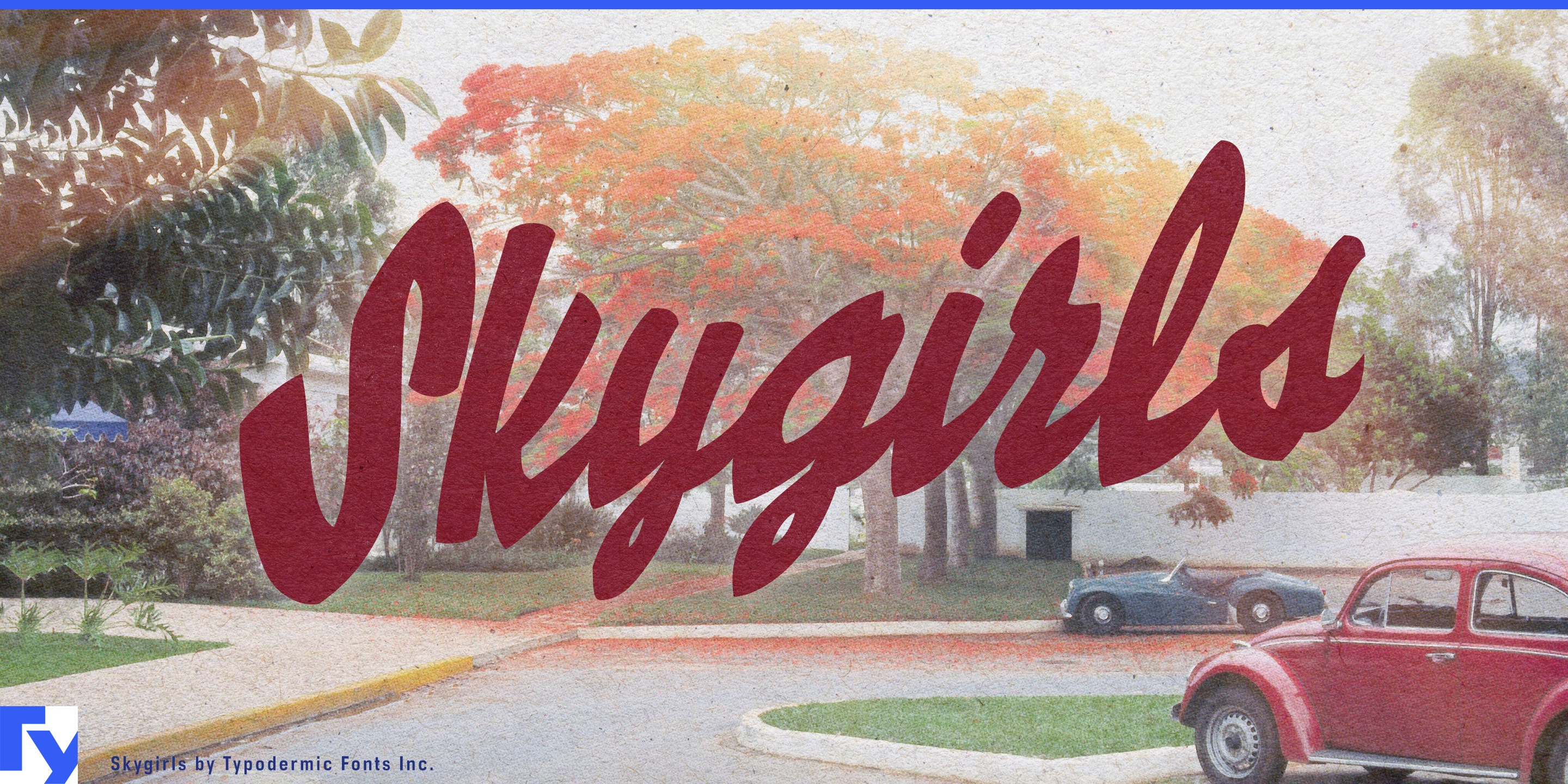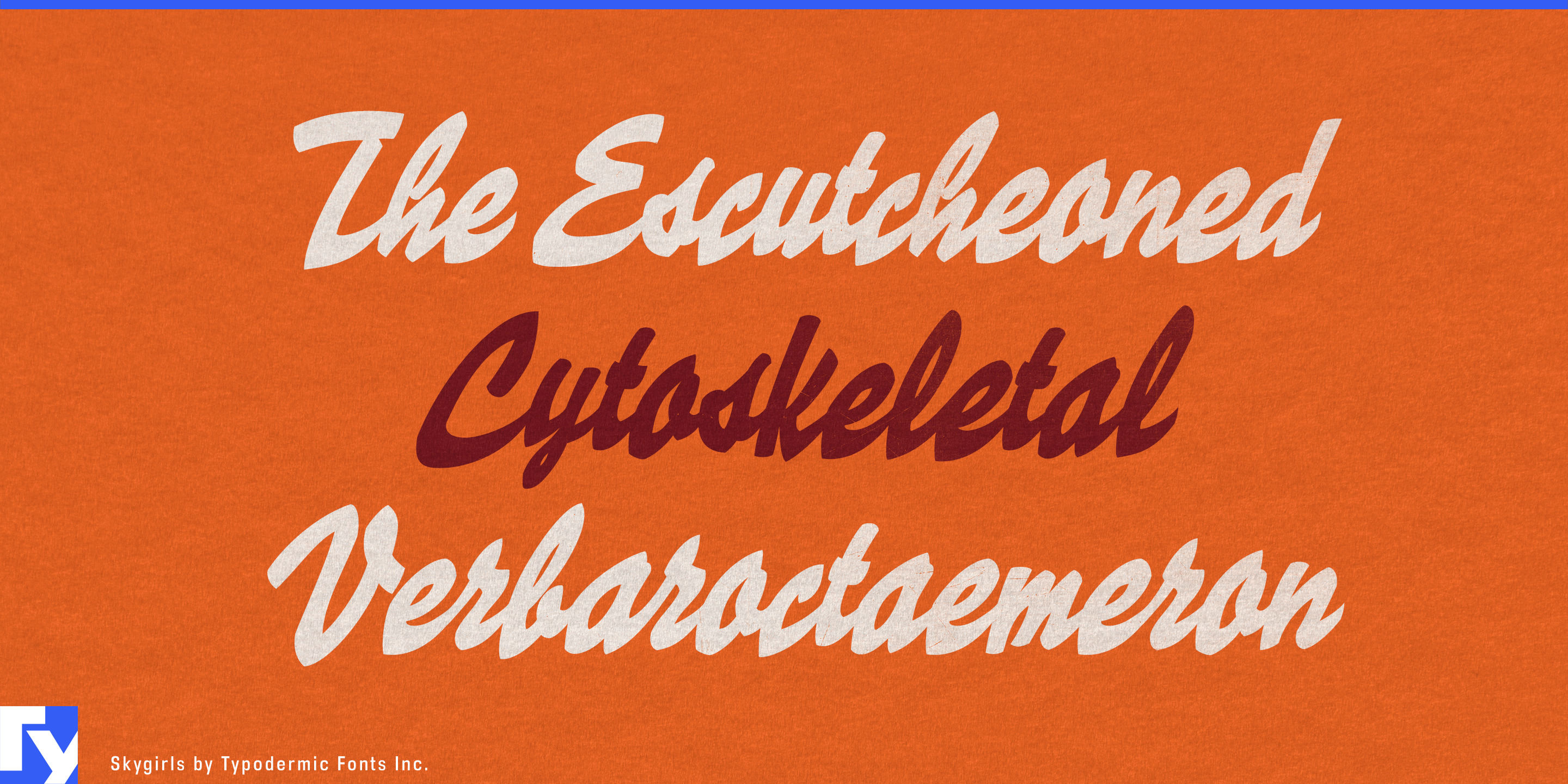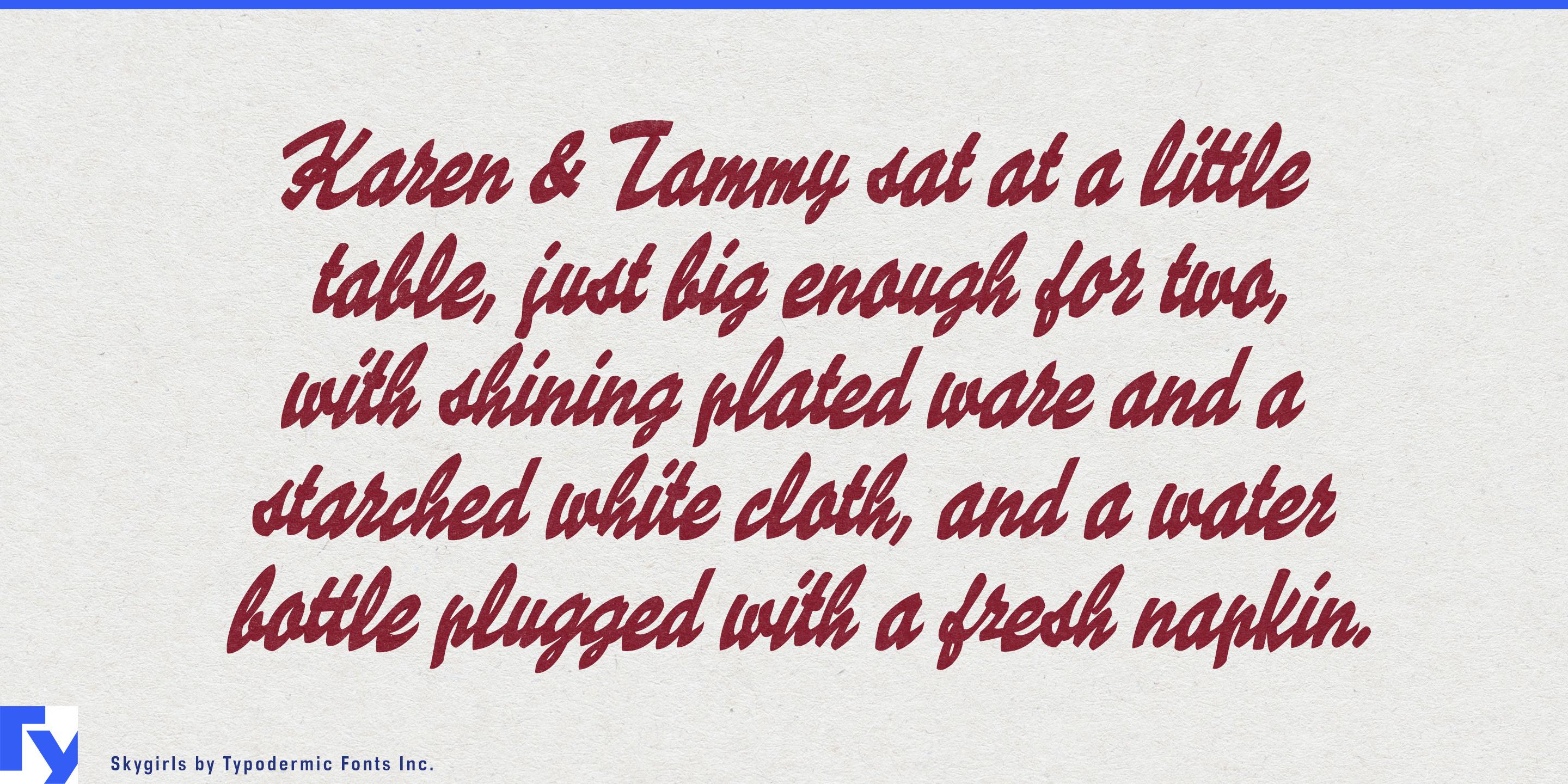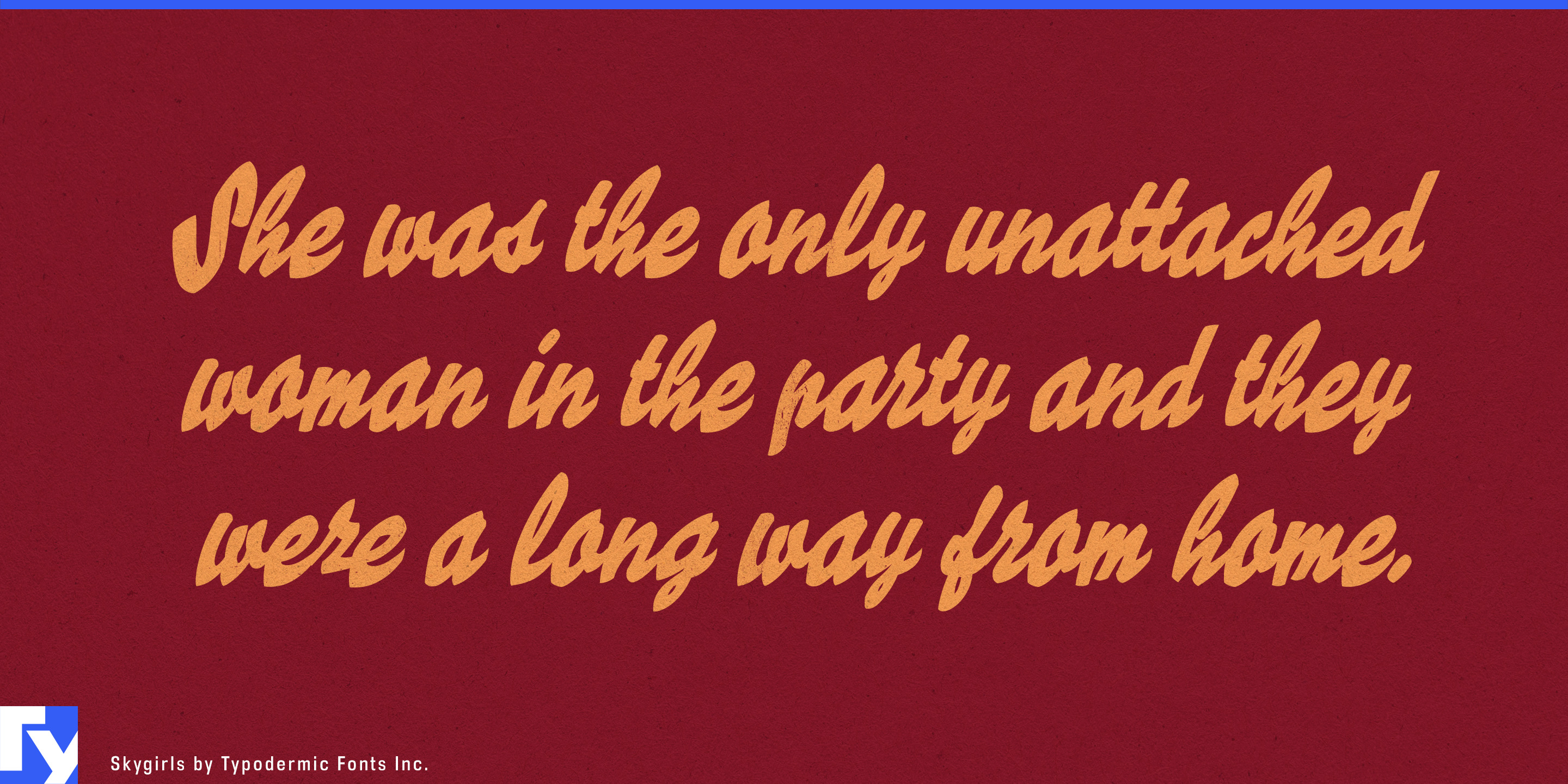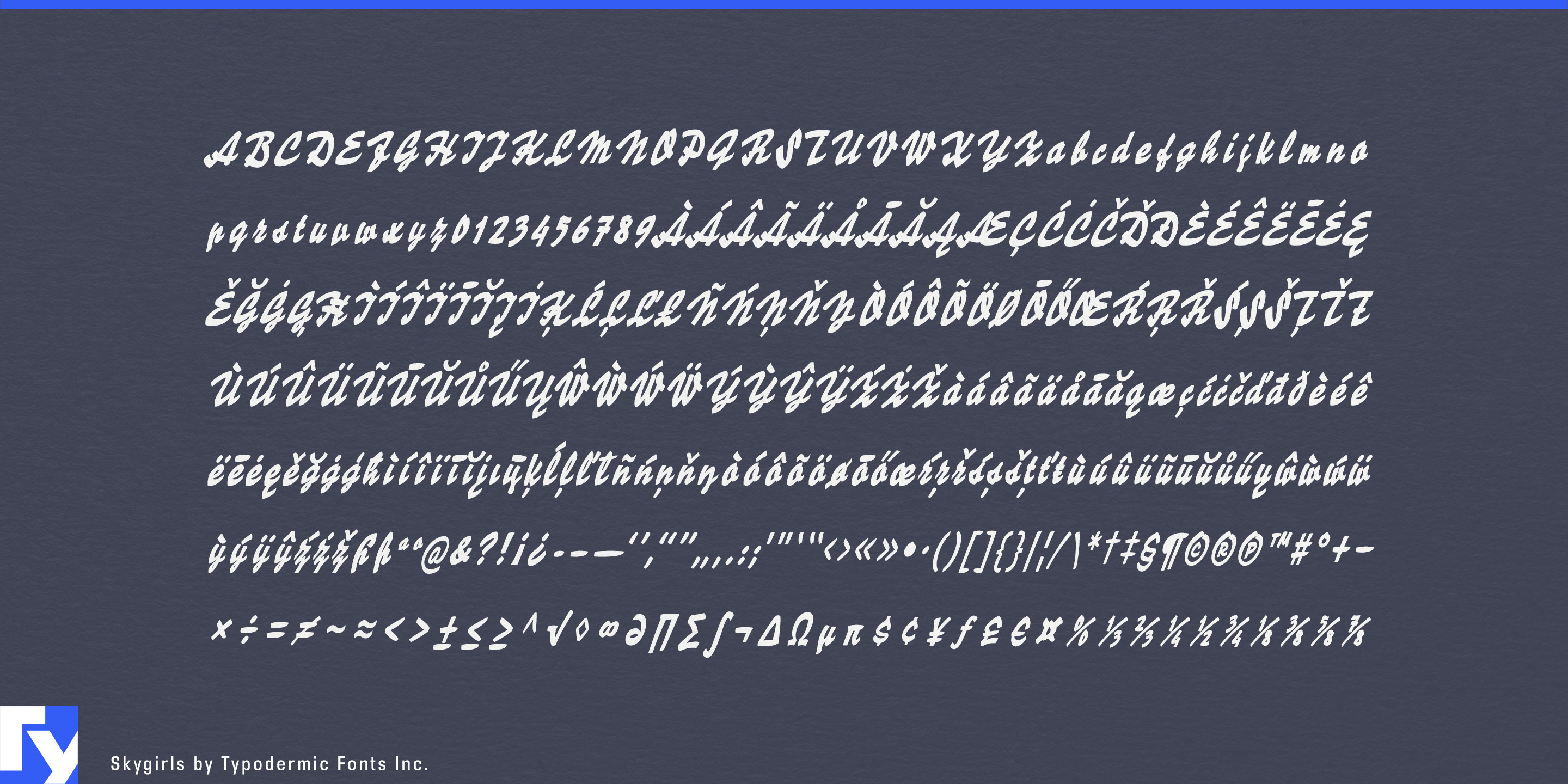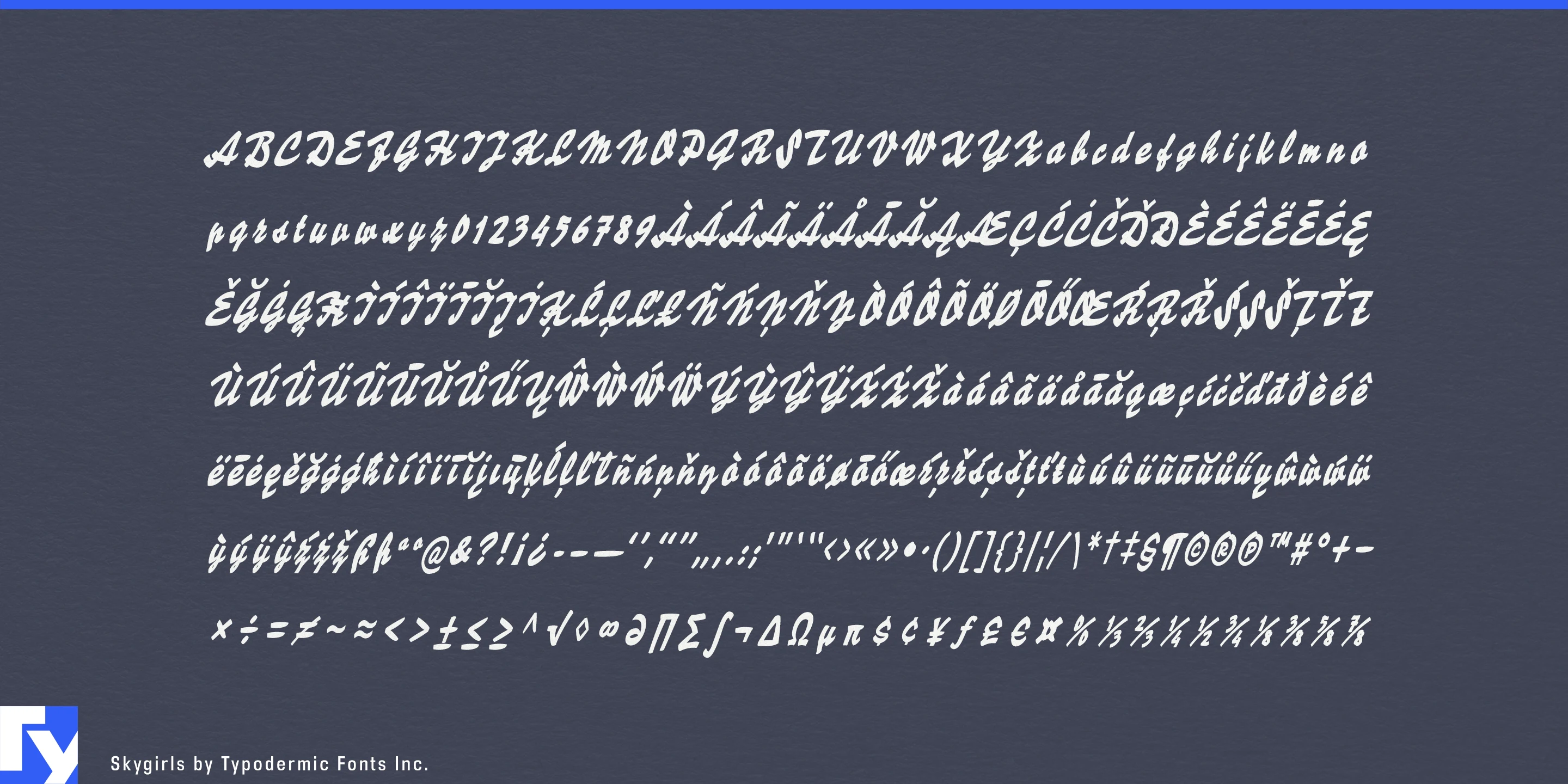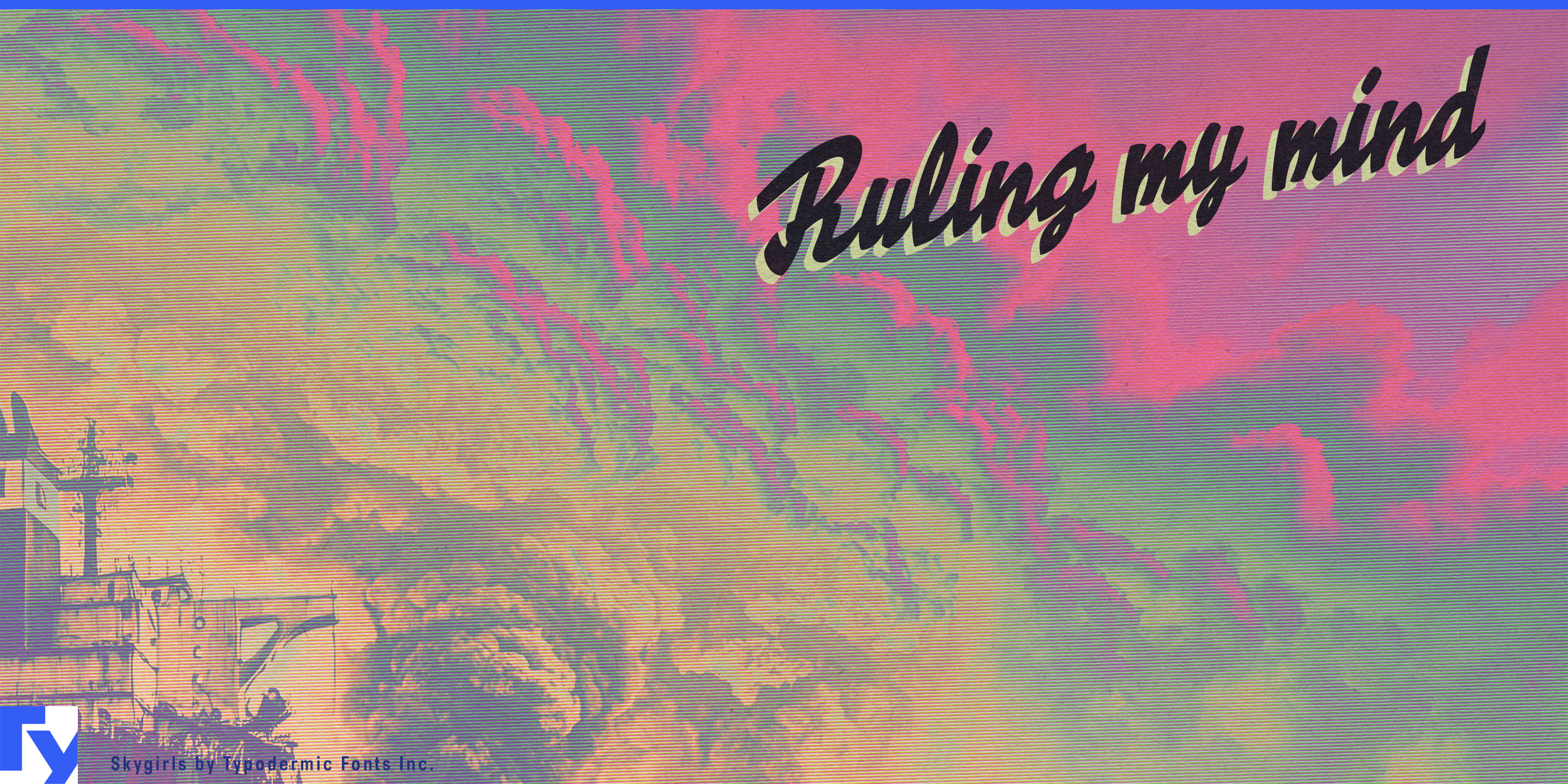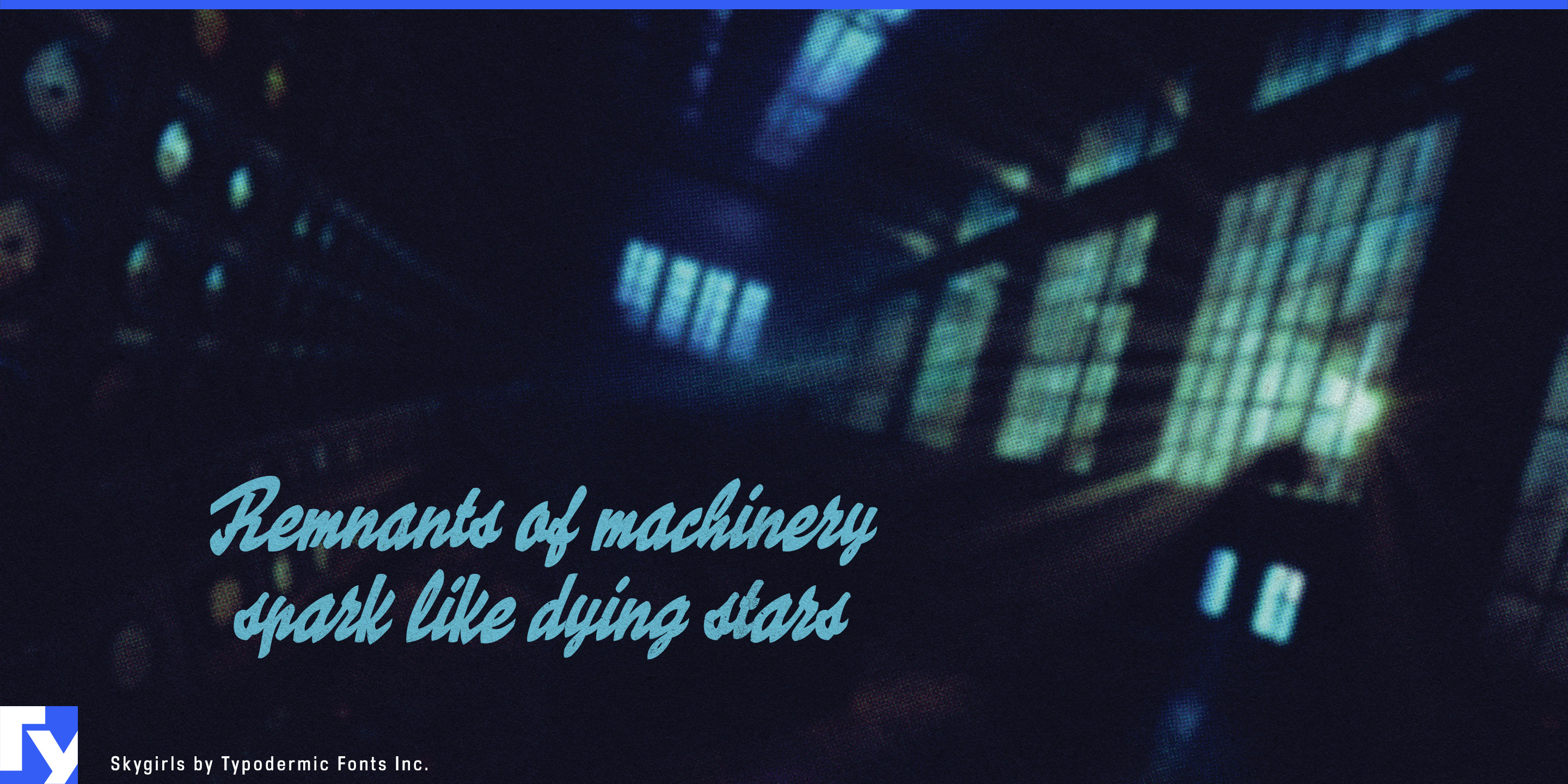
Skygirls
A short model name can be perfectly legible and still have no presence. That is a particular problem for bespoke vehicles, limited editions and heritage products, where the name may need to work as a badge, decal, embroidered mark or launch graphic. A polished contemporary script can feel too graceful; a conventional retro script can drift into familiar diner nostalgia. Skygirls takes a stranger route.
Its steep slant, compressed joins and exaggerated brush forms turn a few letters into a dense graphic signature. Drawn from the eccentric world of early twentieth-century metal scripts and pushed toward caricature rather than careful revival, Skygirls is intentionally difficult to read in longer phrases. That limitation becomes useful when the wording is short: the name is read partly as language and partly as a distinctive shape.
Restomods, specialty automotive projects and custom motorcycles are especially good territory. Skygirls can turn project names, model names and limited editions into hood badges, tank graphics, decals, embroidered marks and presentation titles without falling back on the smoother scripts associated with 1950s car culture. It also creates a useful contrast in projects that combine classic forms with electric drivetrains, digital instrumentation and modern engineering; Skygirls supplies the historical signature while a restrained sans handles specifications and technical information.
Heritage motorsport offers a related role. Historic rallies, hill climbs, endurance-racing retrospectives and special-edition liveries can use Skygirls for event titles, team nicknames and commemorative model names. It belongs on the car, not the timing board.
A narrower packaging role works on the same principle. Vermouth, aperitifs, bitters and limited beverage releases can use Skygirls for product or variant names while the rest of the label remains orderly. Racing games, garage environments and retro-futurist worlds can use it for fictional vehicle models, tuning shops, team names and product marks.
Skygirls is most effective when given a few words and enough room for the silhouette to register. Treat it less like a reading script and more like a badge; compact, rushing and eccentric enough to make a short name memorable.